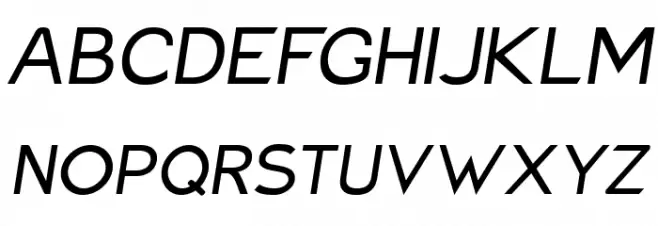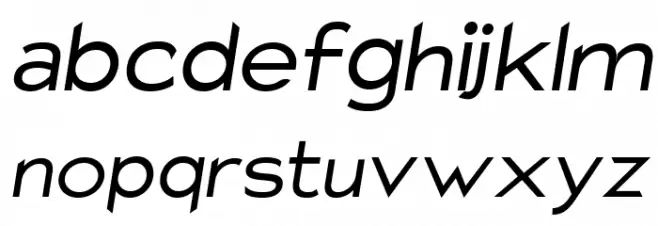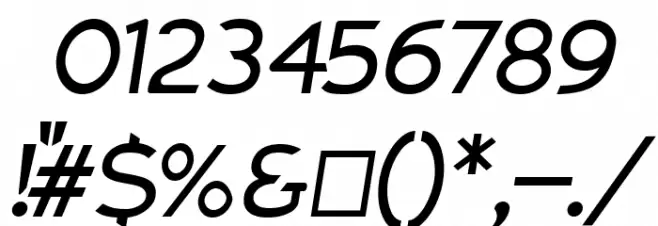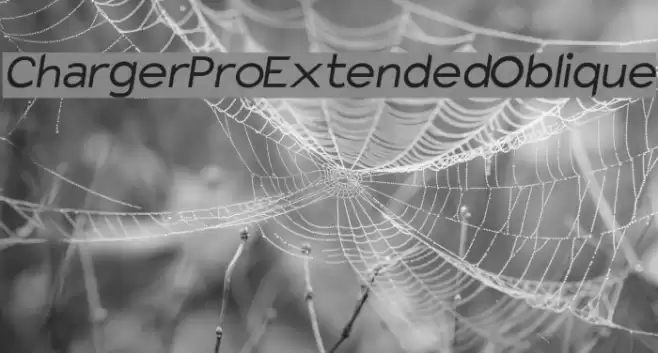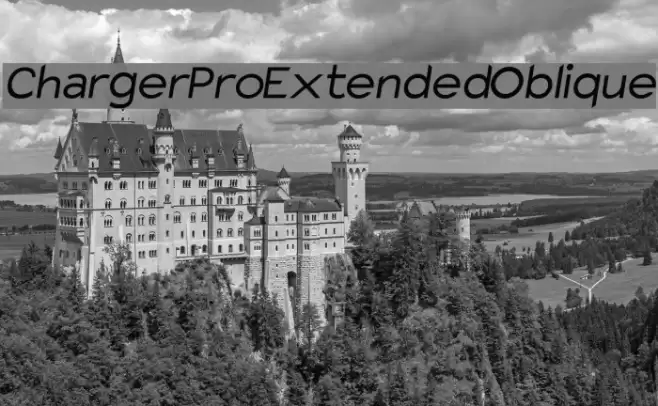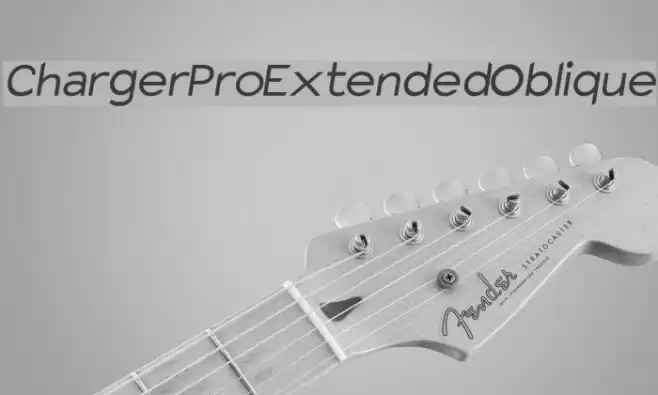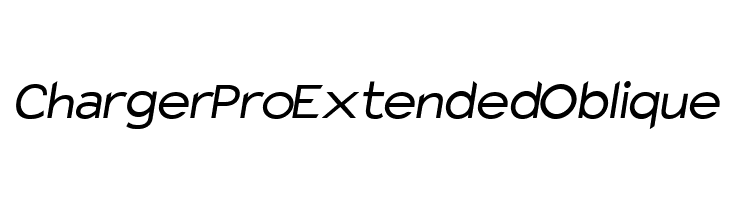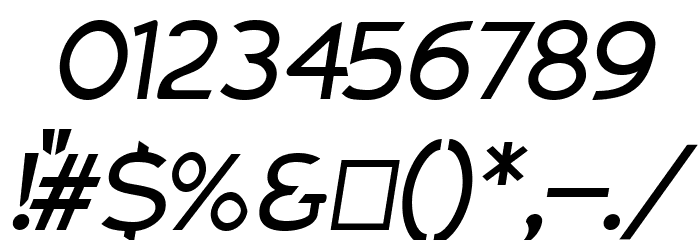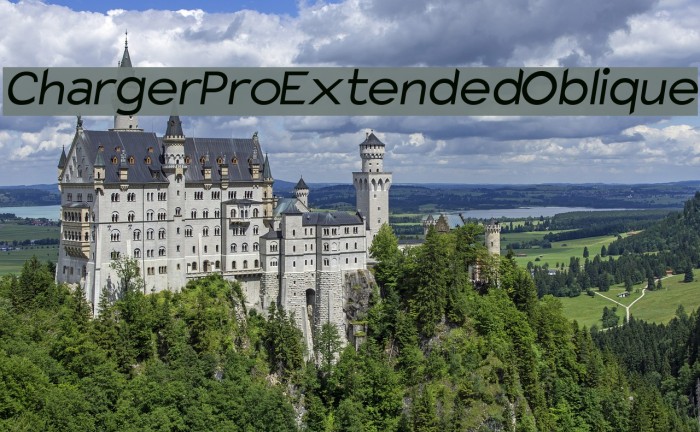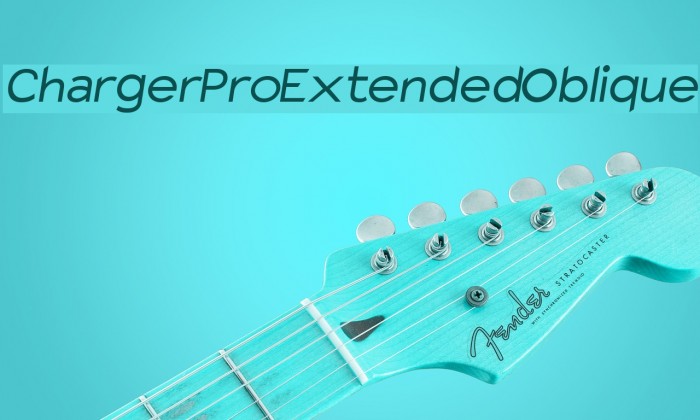
Charger Pro Extended Oblique
This font features a sleek, modern design with an oblique style that adds a dynamic and forward-leaning appearance. The characters are extended, providing a sense of spaciousness and elegance. The clean lines and smooth curves create a professional and contemporary look, making it suitable for a variety of design applications. The uppercase and lowercase letters maintain consistency in style, while the numerals and special characters are designed to complement the overall aesthetic. This font's versatility makes it ideal for both digital and print media.
A sleek, modern oblique font with extended characters and a dynamic style.
- Proposed Projects: Ideal for branding, advertising, website headers, and modern editorial design.
- Width: Expanded
- Use Case: Headlines, Logos, Branding